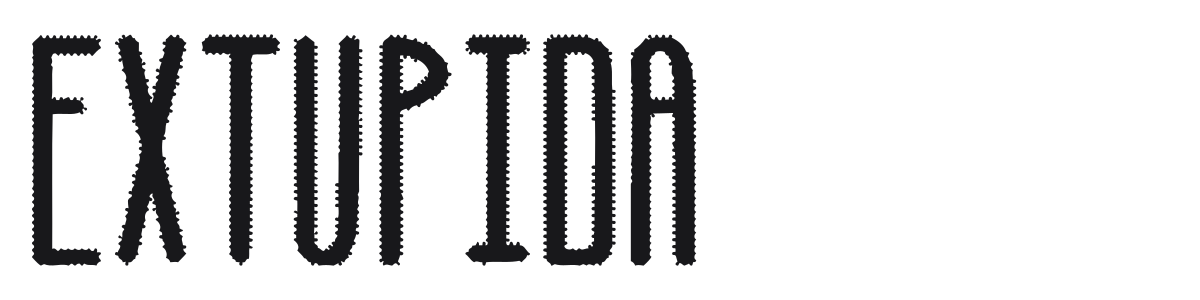
Extupida
Extupida is a tall condensed display font from Woodcutter with heavily eroded, pixelated edges that give every character a raw, stamped quality. The tight monoweight strokes read clearly at large sizes while the rough texture adds grit and a handmade urgency. It works well wherever a clean grotesque would feel too polished.